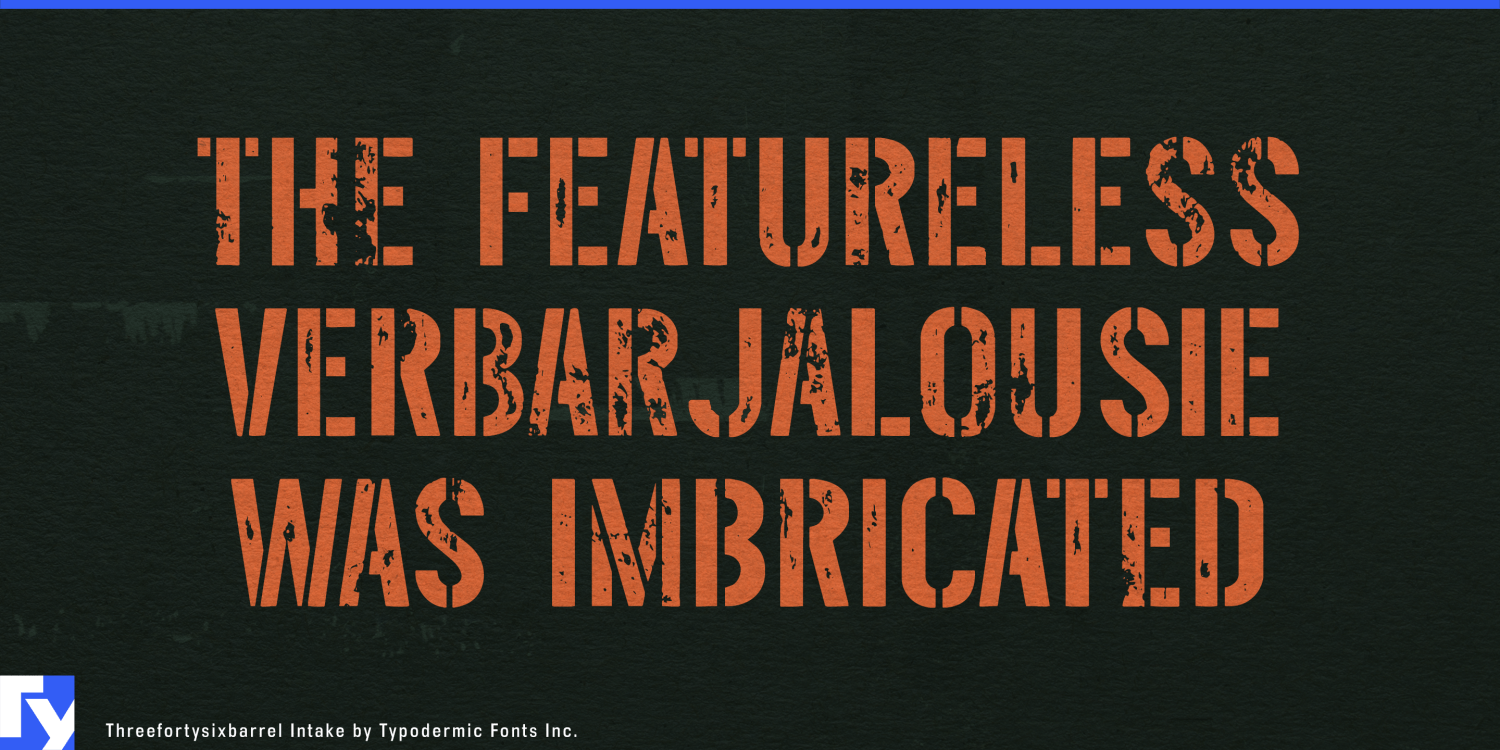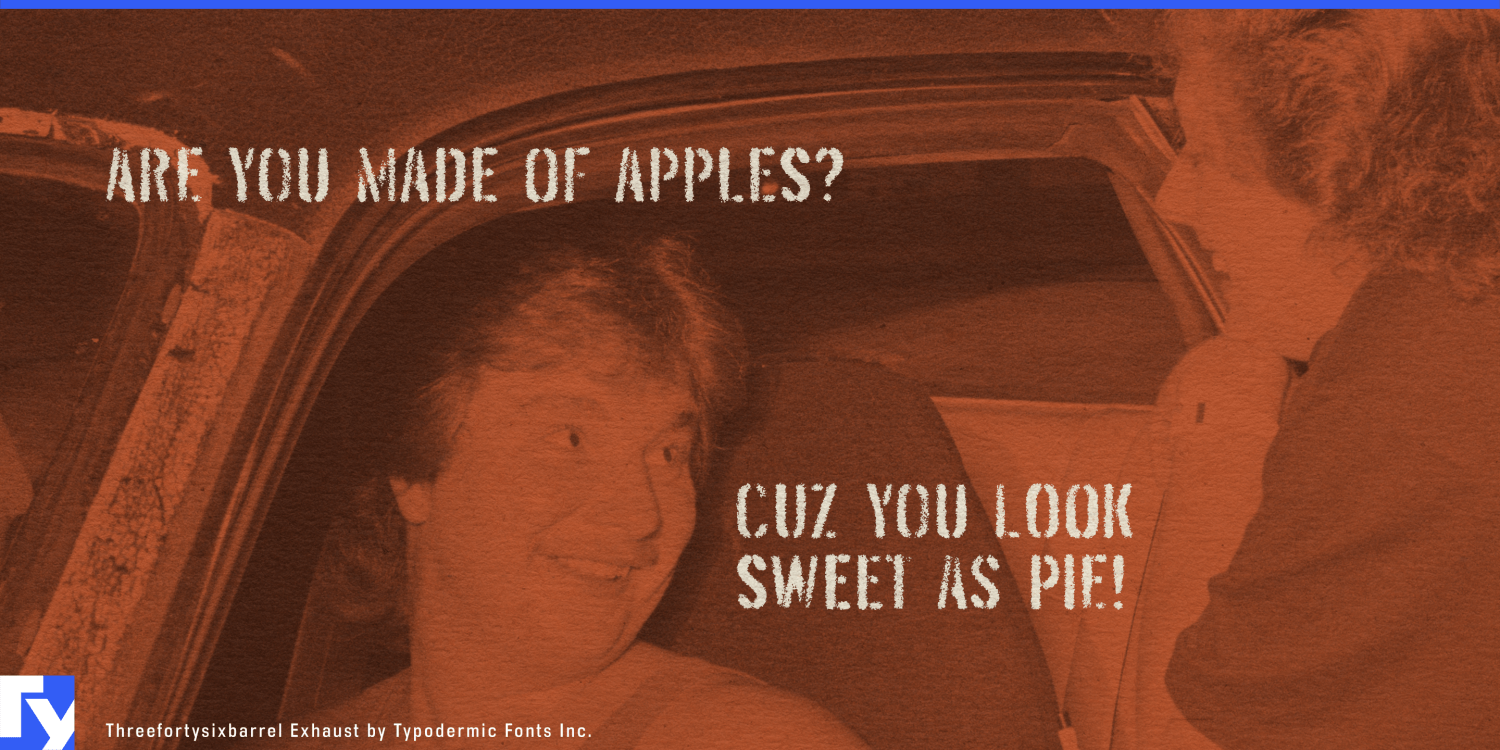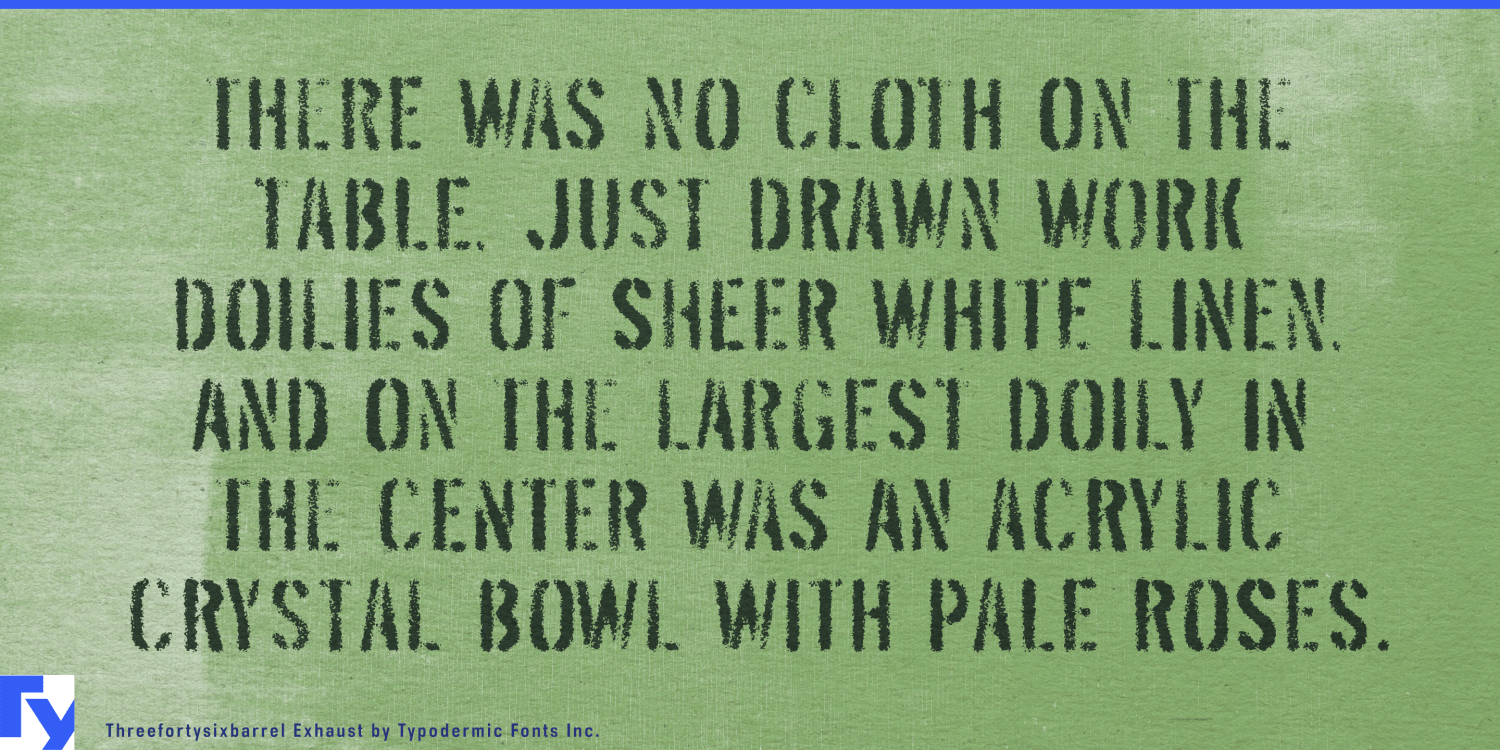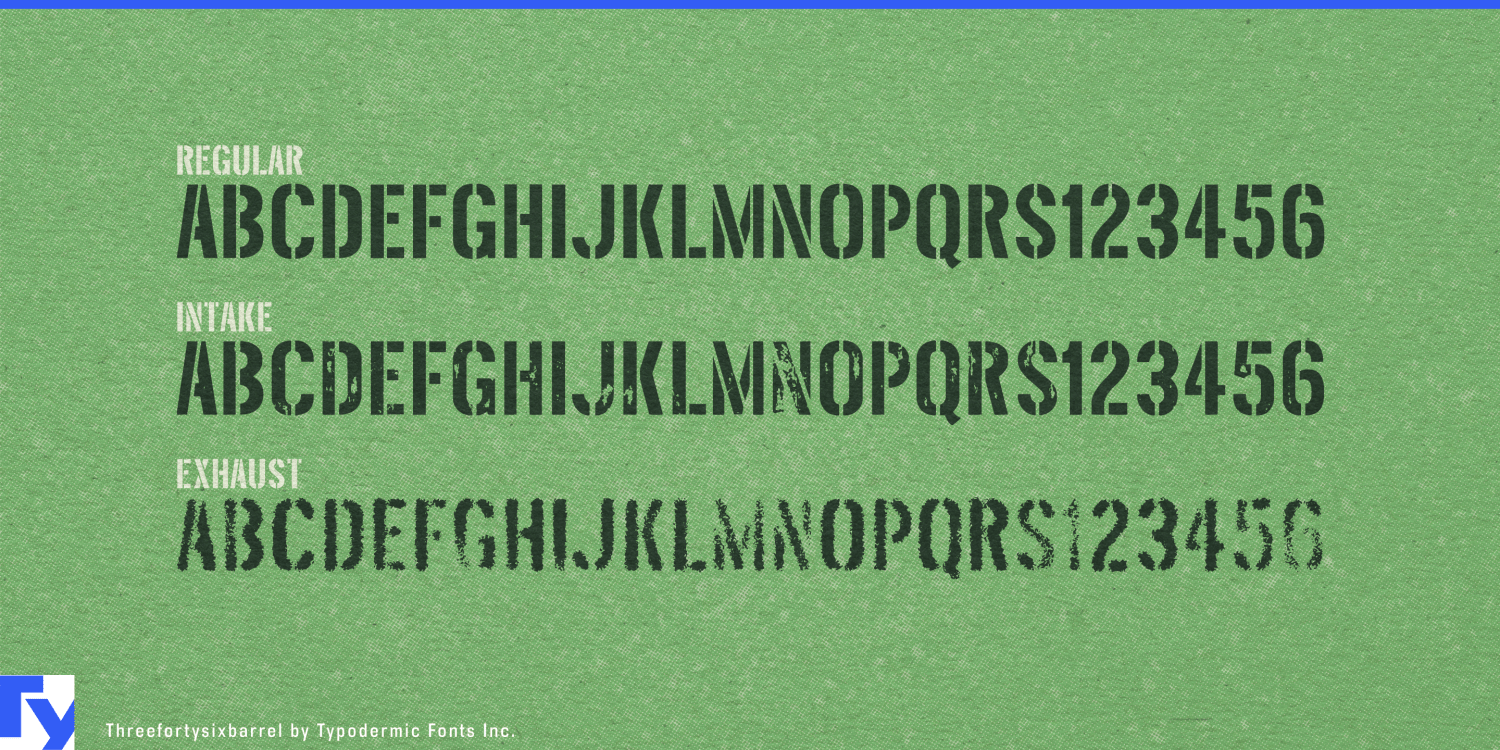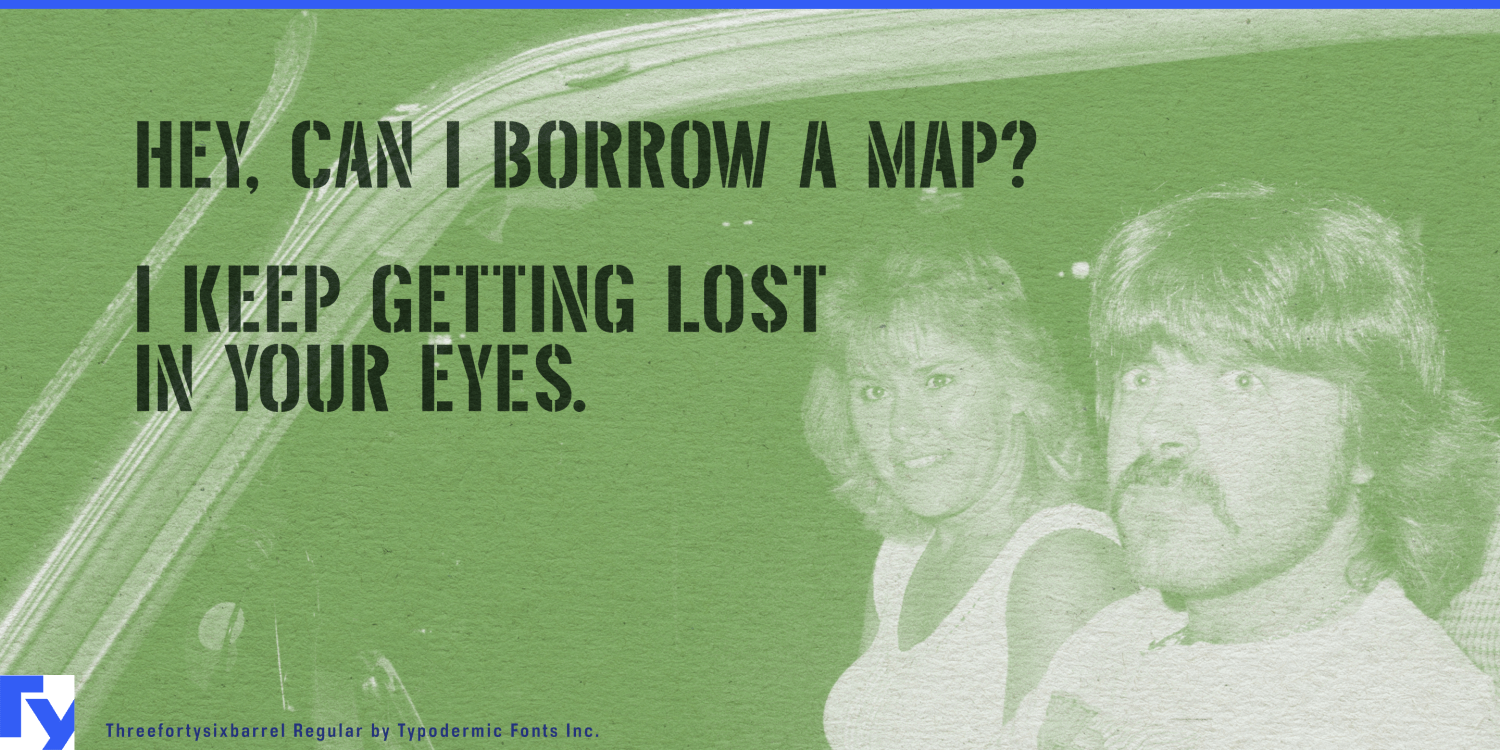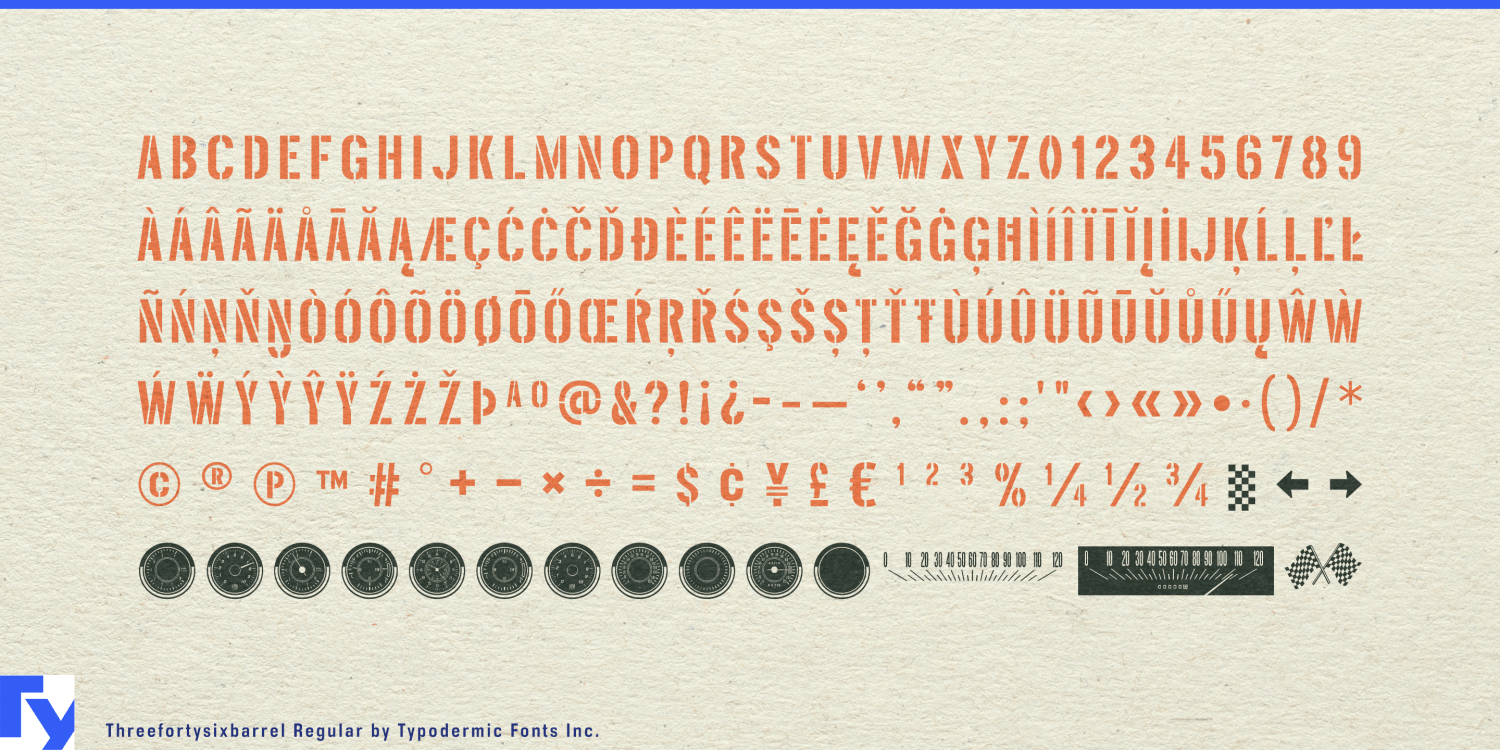
Threefortysixbarrel
About Threefortysixbarrel
Buckle up, typography enthusiasts—Threefortysixbarrel is about to take your designs from zero to sixty faster than you can say “muscle car.” This isn’t just a font; it’s a high-octane, rubber-burning tribute to the golden…